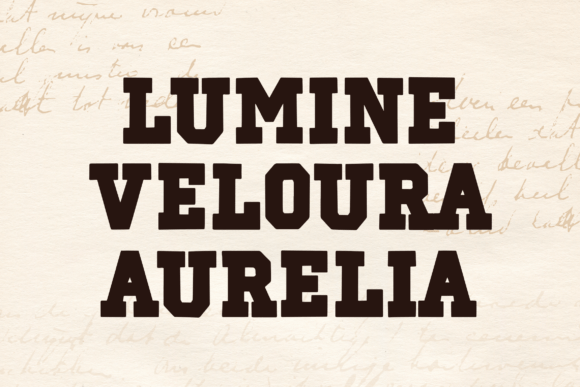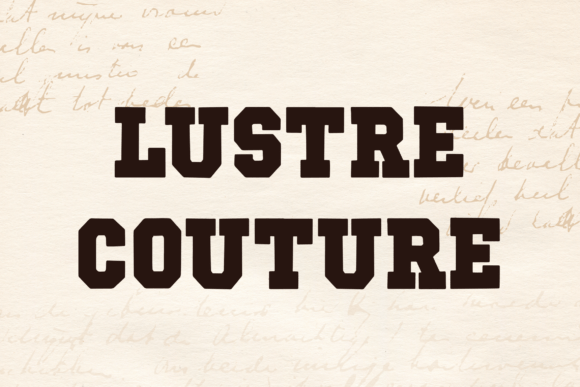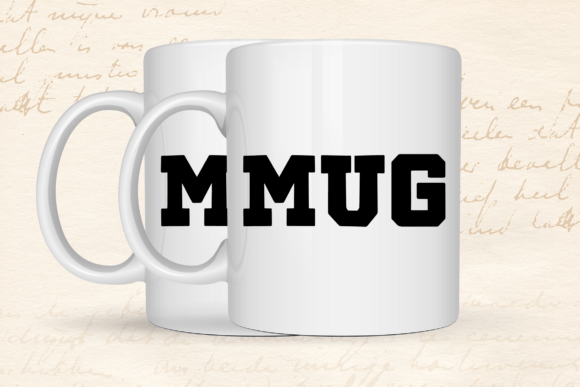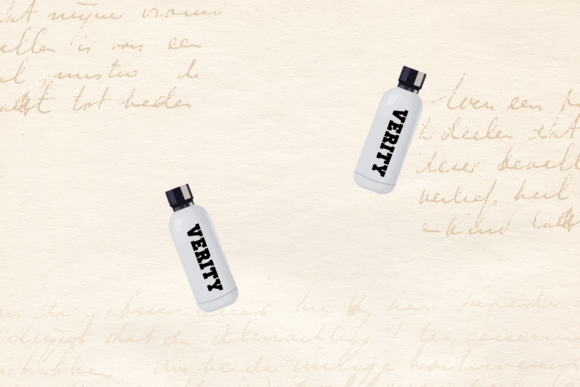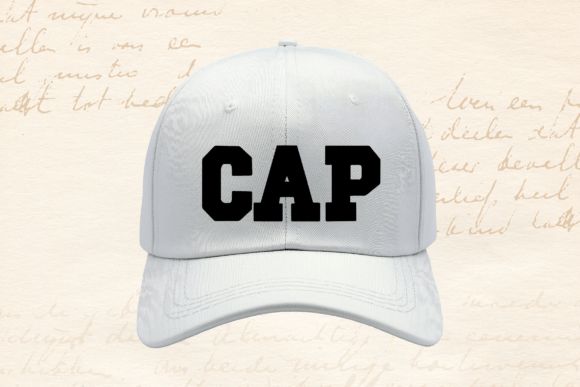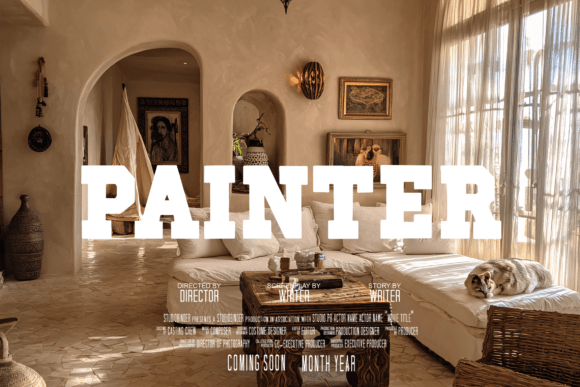
Meet Blockton, the Bold Block Display Font
Are you looking for a font that makes a statement? Look no further than Blockton, a bold block display font designed to demand attention. With its strong, confident letterforms, clean geometry, and solid weight, Blockton is perfect for headlines, logos, and statement designs where clarity matters.
What Makes Blockton Special?
Blockton’s shapes are balanced and sturdy, making it readable at any size, from small labels to large posters. This versatility makes it an excellent choice for a wide range of design applications, including branding, packaging, posters, apparel, signage, stickers, and social media graphics. Whether you’re a designer or a crafter, Blockton is the perfect font to make your designs look powerful, modern, and ready to stand out.
Why Blockton Font Sells
So, what makes Blockton a top choice among designers and crafters? Here are just a few reasons:
- Clean Printing and Cutting: The thick letter shapes of Blockton cut and print cleanly for vinyl, laser, stickers, and screen printing. This ensures that your designs look professional and crisp, whether you’re printing or cutting them out.
- Fast Layout Creation: The block structure of Blockton is simple and predictable, making it easy to work with. This means you can create layouts quickly and efficiently, saving you time and effort.
- Perfect Pairing: Blockton pairs perfectly with thin scripts or minimalist sans fonts, helping you build contrast without clutter. This makes it easy to create visually appealing designs that grab attention.
Use Cases for Blockton Font
Blockton is a versatile font that can be used in a wide range of design applications, including:
- Branding: Use Blockton to create bold, eye-catching logos that make a statement.
- Packaging: Blockton is perfect for labels, packaging, and product design, adding a touch of modernity and confidence to your products.
- Posters: Create striking posters that grab attention with Blockton’s bold, blocky letterforms.
- Apparel: Use Blockton to create bold, statement-making designs for t-shirts, hoodies, and more.
- Signage: Blockton is perfect for signage, whether you’re creating directional signs, promotional signs, or informational signs.
- Stickers: Blockton’s thick letter shapes make it perfect for stickers, whether you’re creating promotional stickers or custom labels.
- Social Media Graphics: Use Blockton to create eye-catching social media graphics that stand out in crowded feeds.
Tips for Using Blockton Font
Here are a few tips for getting the most out of Blockton:
- Experiment with Sizes: Blockton is readable at any size, so don’t be afraid to experiment with different sizes and scales.
- Play with Pairings: Blockton pairs well with a range of fonts, so try pairing it with different fonts to create interesting contrasts.
- Use it Boldly: Blockton is a bold font, so use it to make a statement. Don’t be afraid to use it in bold, eye-catching designs.
In conclusion, Blockton is a versatile and powerful font that’s perfect for designers and crafters looking to make a statement. With its strong, confident letterforms, clean geometry, and solid weight, Blockton is sure to grab attention and make your designs stand out. Whether you’re creating branding, packaging, posters, or social media graphics, Blockton is the perfect choice.